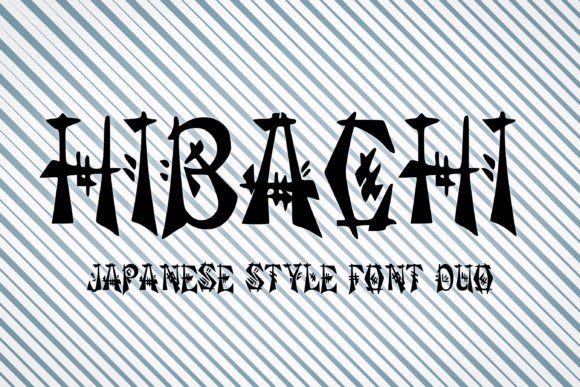
Calling all creative souls and design enthusiasts! Step into the enchanting world of Hibachi, the captivating decorative font that will ignite your imagination and elevate your projects to new heights.
Crafted with meticulous precision by The Tenacious Type Studio, Hibachi embodies the essence of Japanese aesthetics, boasting a distinctive and intriguing vibe that sets it apart in the crowded font landscape. Its exquisitely rendered characters dance across the page, inviting you on an extraordinary visual journey.
Immerse yourself in the allure of Hibachi's unique style, where sharp angles coexist harmoniously with flowing curves, creating a captivating interplay of shapes. Its bold and assertive presence commands attention, while its intricate details whisper tales of elegance and refinement.
But Hibachi is more than just a pretty face. Its versatility knows no bounds, lending itself effortlessly to a myriad of creative endeavors:
- Unleash your inner storyteller with Hibachi's captivating headlines and eye-catching posters, guaranteed to make a lasting impression on your audience.
- Craft invitations and greeting cards that exude sophistication and charm, leaving a lasting memory for your loved ones.
- Inject a touch of the exotic into your branding and packaging designs, evoking a sense of adventure and intrigue.
- Elevate your social media presence with Hibachi's visually stunning fonts, designed to captivate your followers and grow your brand.
With Hibachi at your fingertips, the possibilities are limitless. Its unique character and boundless versatility will empower you to express your creativity like never before. Embark on a design adventure today and discover the transformative power of Hibachi – the font that will ignite your imagination and leave an unforgettable mark on your projects.